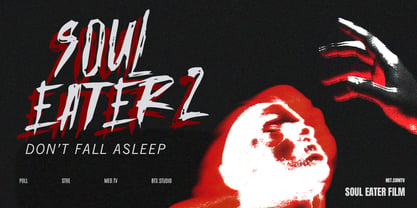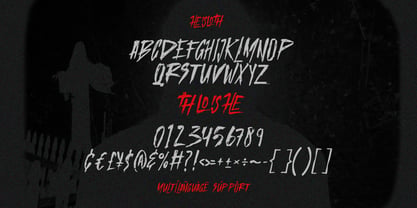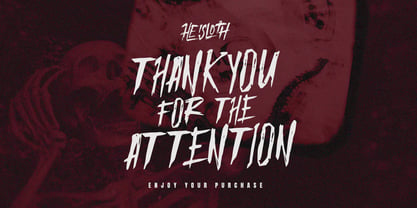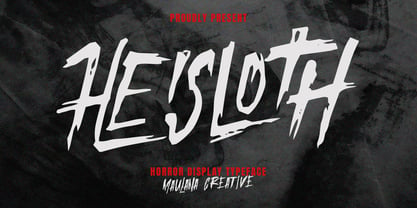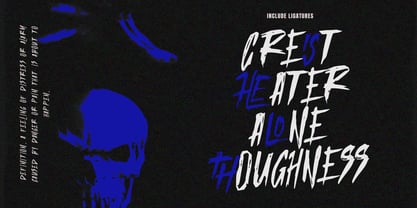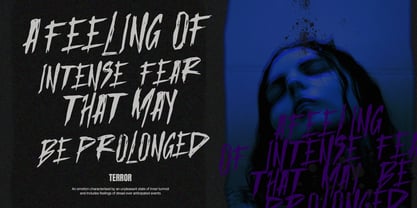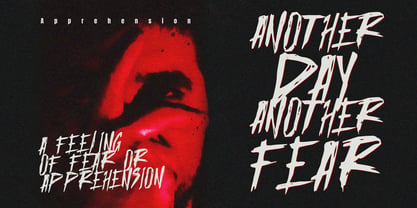
MC Heisloth
by Maulana Creative
The MC Heisloth Font Family was designed by Gilang Maulana and published by Maulana Creative. MC Heisloth contains 1 styles. More about this family
Give your designs an authentic brush handcrafted feel. "Heisloth Handmade Horor Brush Font" is perfectly suited to signature, stationery, logo, typography quotes, magazine or book cover, website header, flyer, clothing, branding, packaging design and more.
Designers: Gilang Maulana
Foundry: Maulana Creative